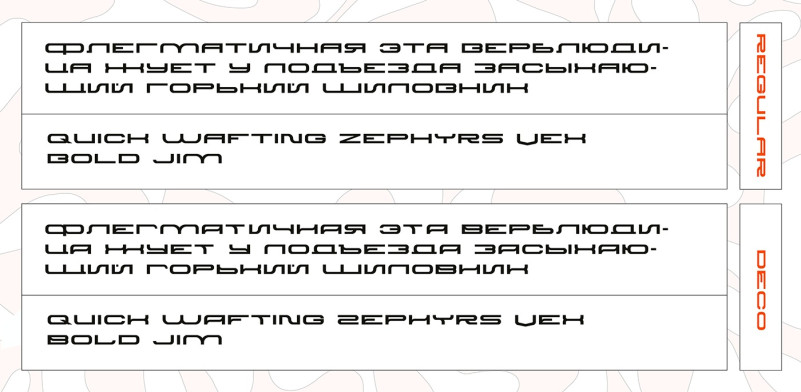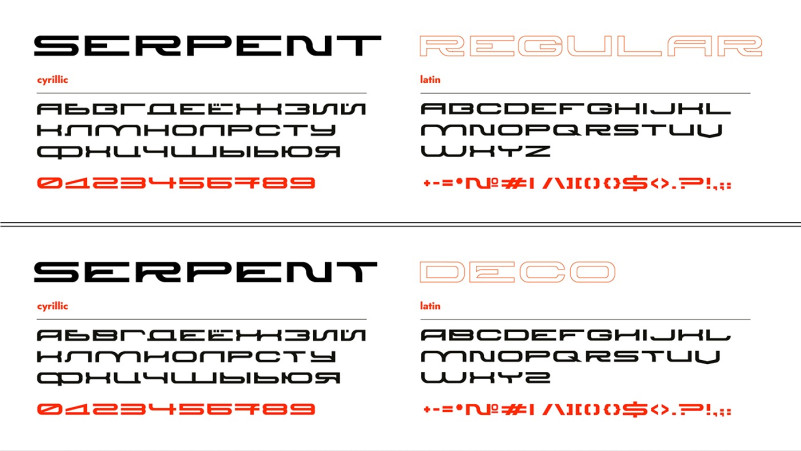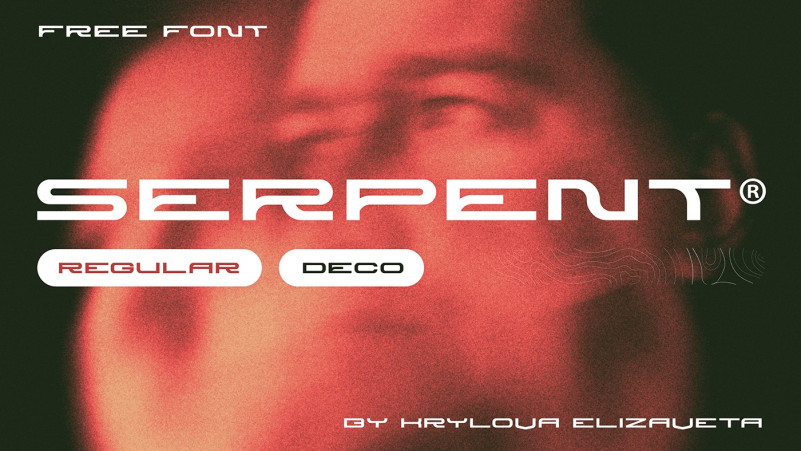
Serpent Display Font is a Strong Sharp edges sans display font manufactured by Елизавета Крылова. To give you an extra creative work. This font is good for logo design, Social media, Movie Titles, Books Titles, a short text even a long text letter and good for your secondary text font with script or serif. Make a stunning work with Gratika font.